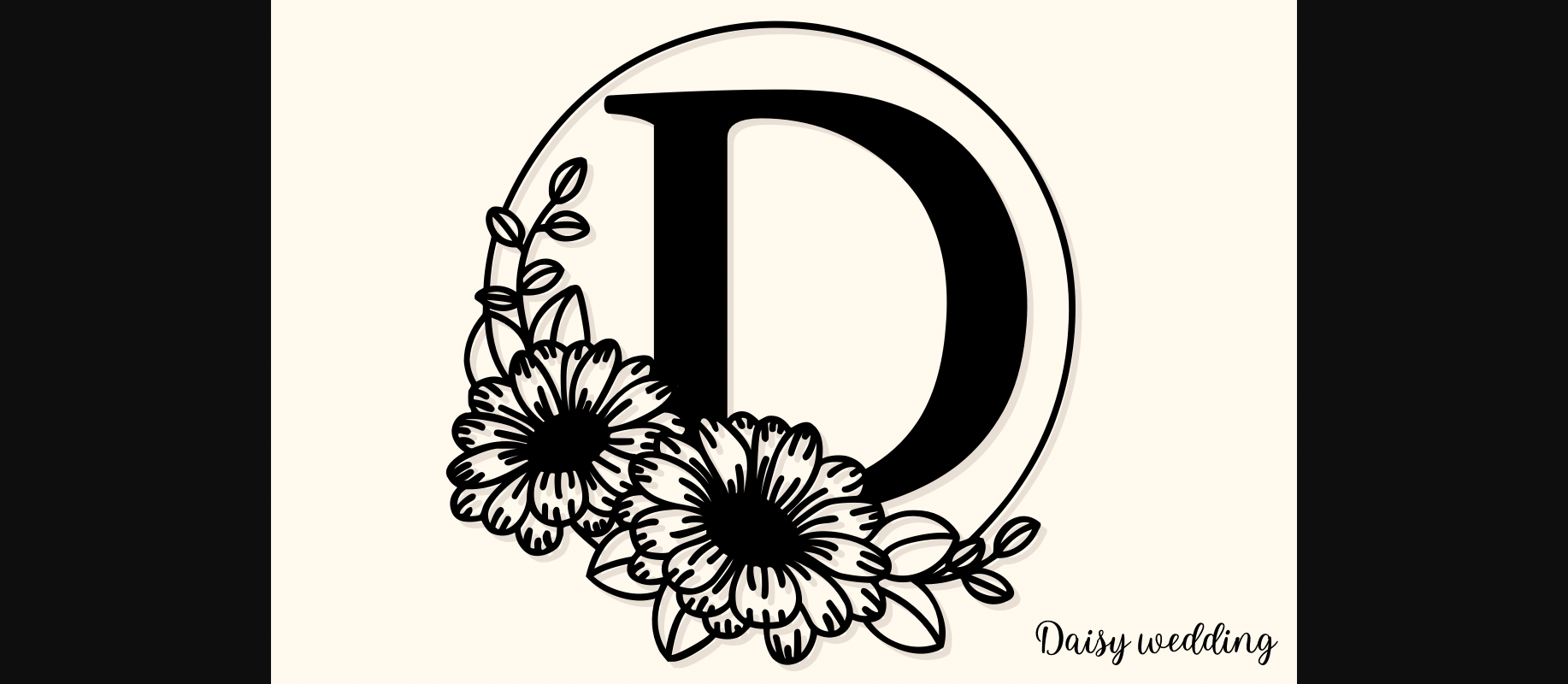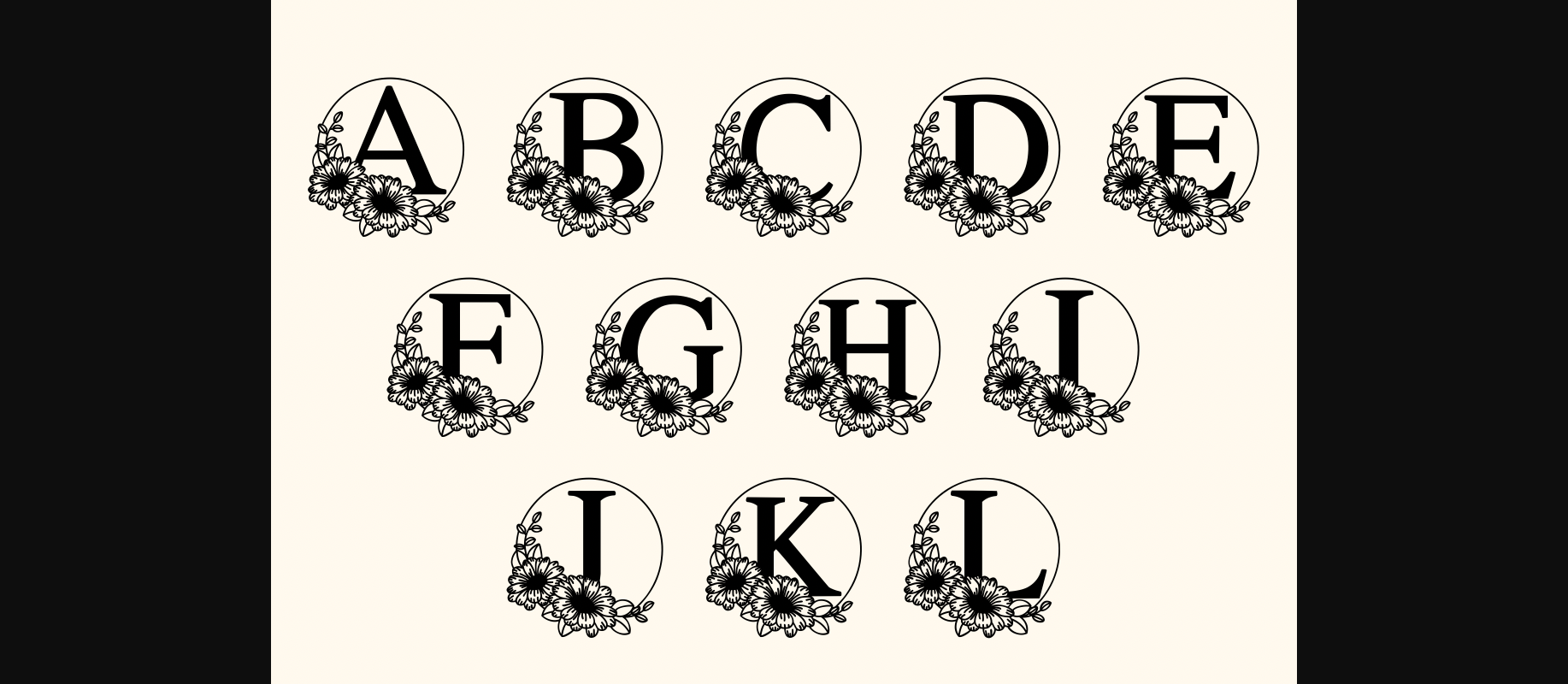
About Daisy Wedding Font
Daisy wedding is a decorative font with romantic elements. You can use it for taking notes, writing a diary or making greeting cards. However you can still use it for other designs such as banners content mugs cards shirts stationery social media posts and more!